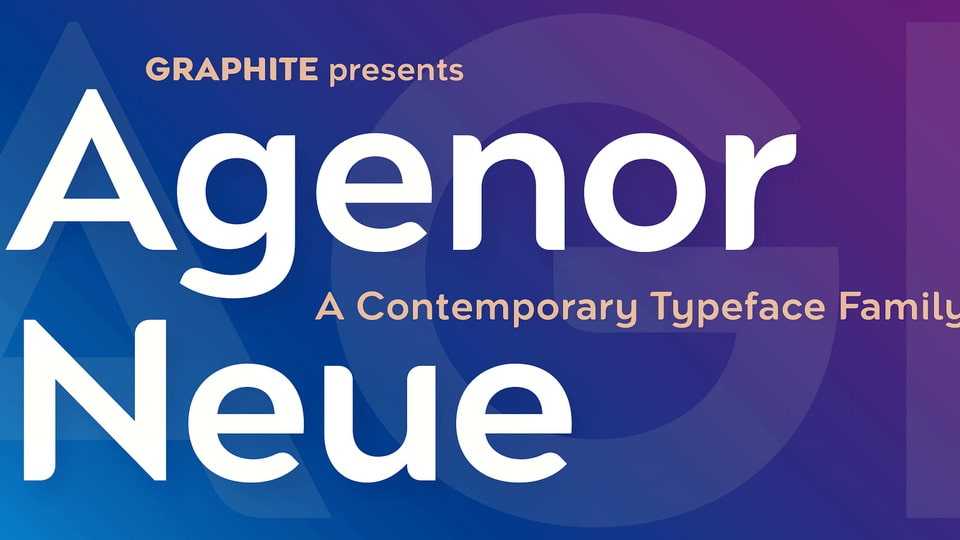
Download Agenor Neue font, a geometric sans serif typeface with a slight twist. The selective use of rounded edges gives Agenor Neue font a unique and distinct character.
Designer: Deepak Dogra